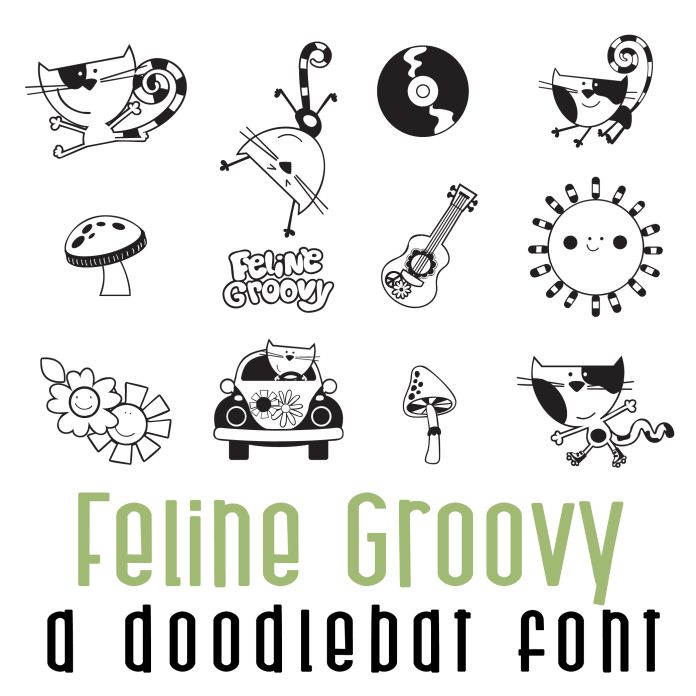
This doodlebat font features 26 groovy cats and retro style designs. Perfect for cards, crafts, gifts, planner stickers, classrooms, parties, scrap book pages and more!